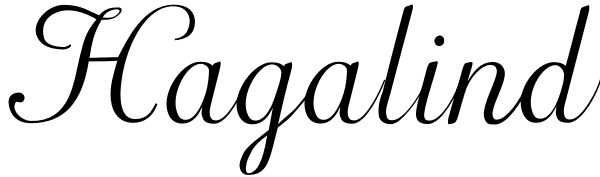
Hagalind
Hagalind is a beautiful new script with a natural flow from Swedish type designer Bo Berndal and the T4 font foundry. Hagalind is elegant and friendly with ligature style capital letters, inspired by 18th century writing. The name comes from Swedish...
Hagalind Font